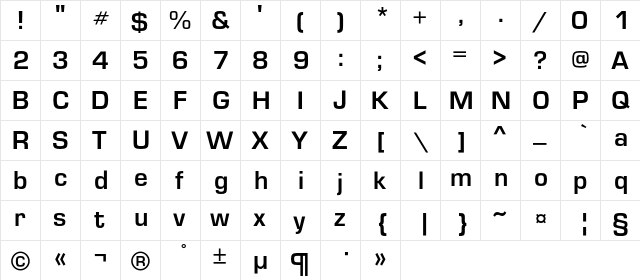
EuropeDemi Regular
Design Context for EuropeDemi Typeface
EuropeDemi takes a measured approach to typography — its balanced proportions and neutral character make it a reliable workhorse for both digital and print work.
Pro Tip: Pair EuropeDemi with a font of contrasting weight or personality to build a more expressive typographic hierarchy.